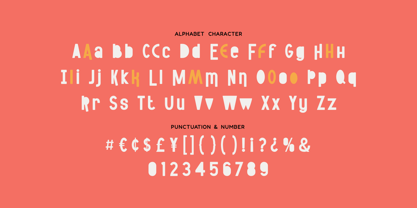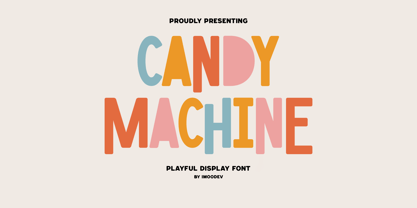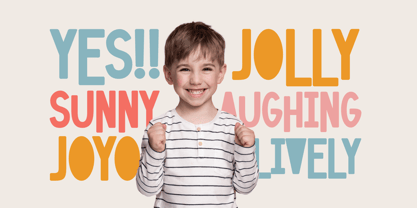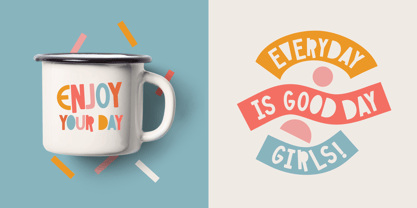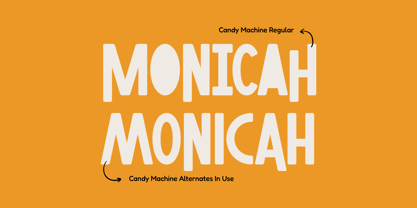
Candy Machine
The Candy Machine Font Family was designed by Aulia Savira Putri and published by Imoodev. Candy Machine contains 1 styles. More about this family
Candy Machine is a playful display font with chunky, rounded shapes and a whimsical, slightly irregular. The irregularity in width and the mix of straight and curved edges make it feel like each letter was handcrafted. The font plays with negative space and alternate styles within the same letter, giving it a whimsical, collage-like feel.
Perfect for branding, packaging, food packaging, indie children's books, headline, poster, logo, sticker, other branding.